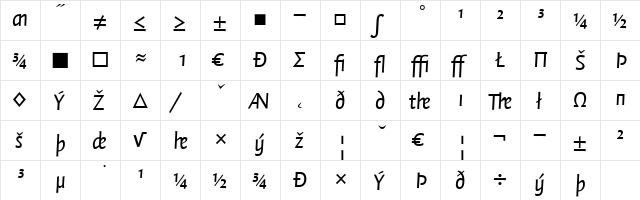
QuadraatSans Italic
| Foundry | Fred Smeijers, . Published by FontShop International. FontFont Release |
Design Context for QuadraatSans Typeface
QuadraatSans offers clean, dependable letterforms without strong stylistic allegiance, making it a practical choice for designers who need flexibility. The dynamic lean of this cut emphasises speed and emphasis in any layout.